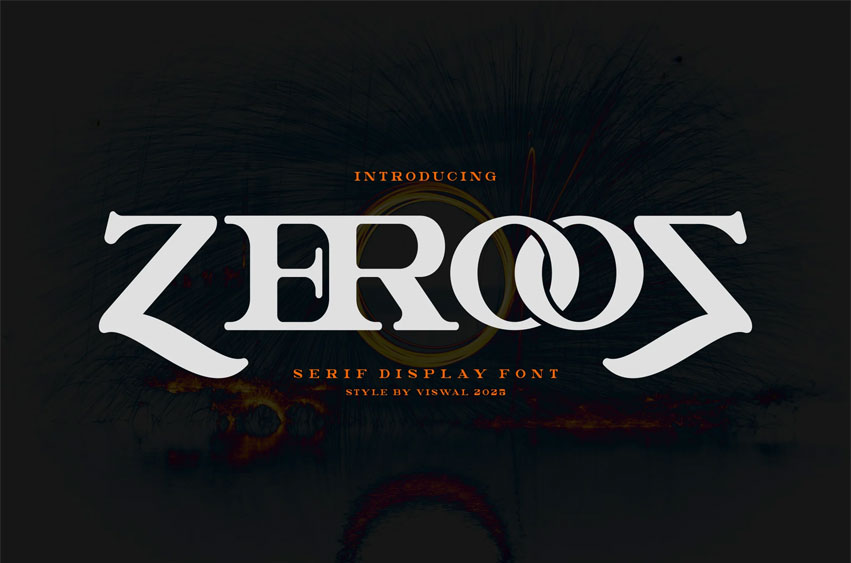
Zerooz Font
Zerooz Font Is A Classic Bold Typeface. It can Make It Easier To Convey The Message In Your Design. Font Is Suitable For Logo, Labels, Badge, Branding, Magazine, Poster, Title, Gigs, Covers, etc.
Our Fonts Have Uppercase & Lowercase, numerals & Punctuation, and OpenType features. For Amazing Designs, You Can Mix With Other Fonts As A Complement.